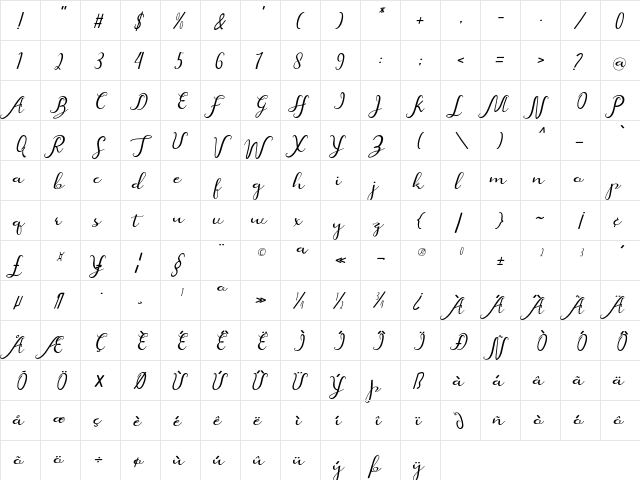
beatiful arwah studio Font Preview
beatiful arwah studio
beatiful arwah studio Font Details
Design Context for beatiful Typeface
beatiful is a composed and adaptable typeface that performs quietly and consistently across a wide range of design contexts.